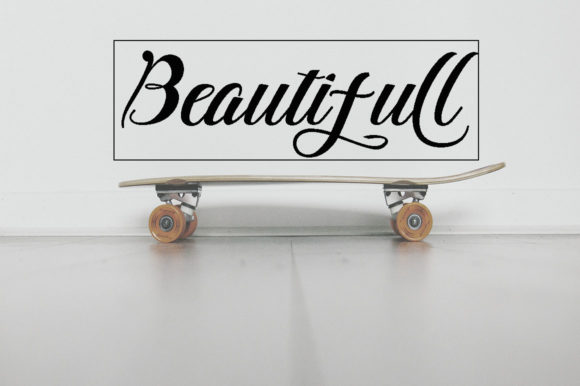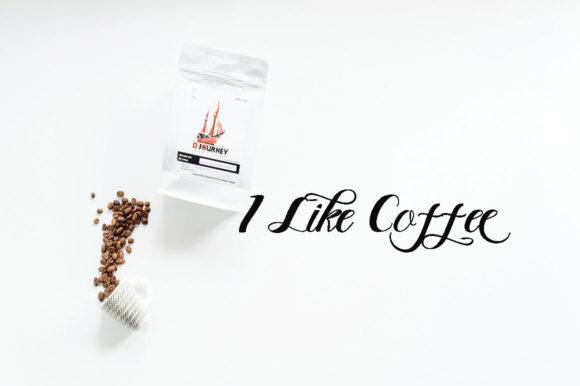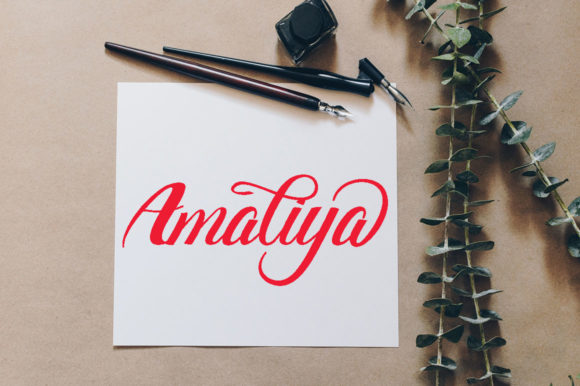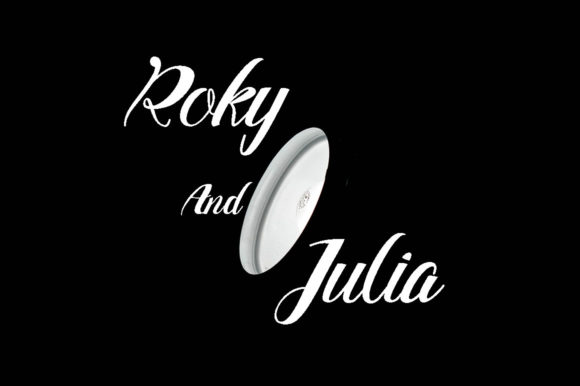
Introducing Dragena Font: Elevate Your Designs with a Bold Handwritten Style
In the world of design, fonts play a crucial role in conveying the tone and personality of a project. Whether you’re a professional designer or a crafty DIY enthusiast, finding the right font can make all the difference. If you’re looking for a bold and modern handwritten font that can elevate your designs to the highest level, look no further than Dragena Font.
What is Dragena Font?
Dragena Font is a bold handwritten font that features a modern style, perfect for a wide range of design projects. Its unique and elegant lettering makes it an excellent choice for designers and crafters who want to add a touch of sophistication to their work. With Dragena Font, you can create stunning branding, headings, wedding designs, invitations, signatures, logos, labels, and much more!
Key Features of Dragena Font
- Bold and Modern Style: Dragena Font boasts a bold and modern style that is sure to make your designs stand out.
- Handwritten Elegance: The font’s handwritten elegance adds a touch of sophistication to any design project.
- Versatile: Dragena Font is perfect for a wide range of design projects, from branding and headings to wedding designs and invitations.
- Easy to Read: Despite its bold style, Dragena Font is easy to read, making it perfect for designs that require a clear and concise message.
Uses of Dragena Font
Dragena Font is an incredibly versatile font that can be used for a wide range of design projects, including:
- Branding: Create a bold and memorable brand identity with Dragena Font.
- Headings: Use Dragena Font to create stunning headings that grab attention.
- Wedding Designs: Add a touch of elegance to your wedding designs, including invitations, programs, and place cards.
- Invitations: Create beautiful and eye-catching invitations for any occasion.
- Signatures: Use Dragena Font to create elegant and sophisticated signatures.
- Logos: Create a bold and memorable logo with Dragena Font.
- Labels: Use Dragena Font to create beautiful and eye-catching labels.
Why Choose Dragena Font?
With so many fonts available, why choose Dragena Font? Here are just a few reasons:
- Unique Style: Dragena Font has a unique and elegant style that sets it apart from other fonts.
- High-Quality: Dragena Font is a high-quality font that is designed to produce stunning results.
| Font Name | Dragena Font |
| Author | AsaharStudio |
If you’re looking for a bold and modern handwritten font that can elevate your designs to the highest level, look no further than Dragena Font. With its unique and elegant style, versatility, and ease of use, Dragena Font is the perfect choice for designers and crafters. Whether you’re creating branding, headings, wedding designs, invitations, signatures, logos, labels, or much more, Dragena Font is sure to impress.